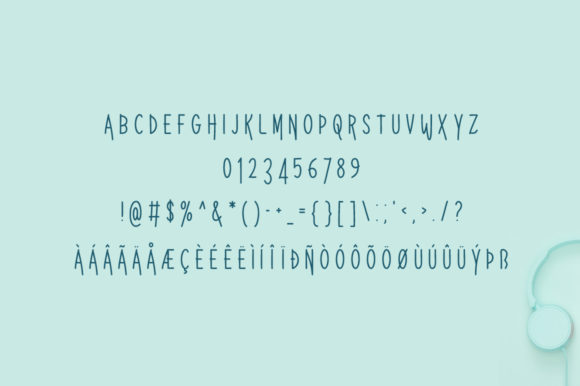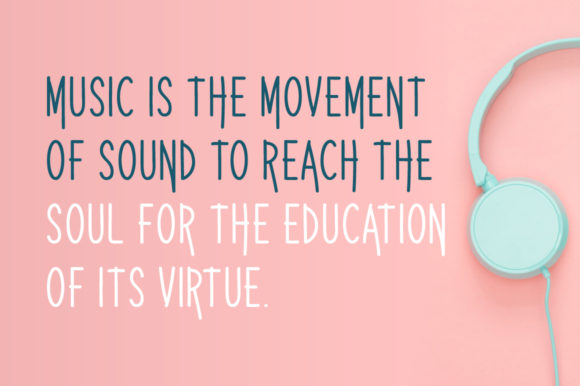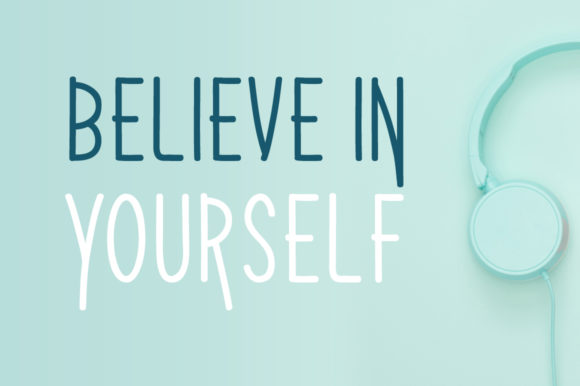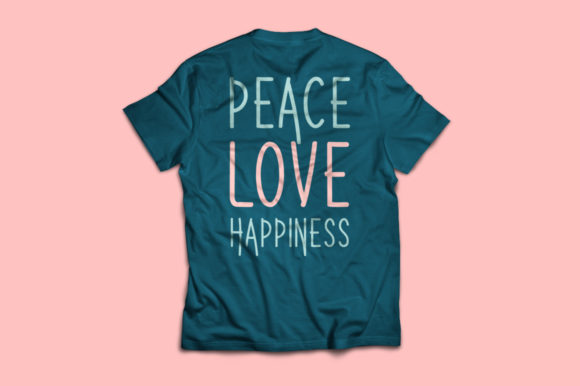
Introduction to Maximin Font
Do you remember the moment when you stumbled upon the perfect font for your creative project? It’s that ‘aha’ moment when everything falls into place, and your design comes alive. For designers, finding the right font can be a game-changer. It’s what sets your work apart from the rest and makes it truly memorable.
Enter the Maximin Font, a stunning new addition to the world of typography. This modern display font is a design resource that’s sure to elevate your projects to the next level. With its sleek lines and versatility, it’s perfectly suited for a wide range of applications, from stationery and logos to t-shirts and posters.
What makes the Maximin Font truly special is its high-quality design, which allows for a transparent background, making it a valuable asset for any creative project. And the best part? It’s available for free download, making it an accessible resource for designers of all levels.
Key Features of Maximin Font
- High-quality design resource ideal for creative projects with a transparent background.
- Includes 4 different font styles (Light, Regular, Medium, Bold) for versatility in design.
- Supports Latin and Cyrillic alphabets, making it suitable for international designs.
Honest Review: Maximin Font
As a designer, I’m always on the lookout for high-quality design resources that can elevate my creative projects. Recently, I had the chance to try out the Maximin Font, and I’m excited to share my honest review.
- ✨ The Maximin Font has a beautiful, elegant design that’s perfect for a variety of creative projects, from branding to publishing.
- ✨ The font is highly customizable, making it easy to adjust to fit your specific design needs.
- ⚠️ The Maximin Font doesn’t come with a transparent background, which can make it difficult to use on certain design elements.
- ⚠️ Some users may find the font to be a bit too ornate for certain projects, but I personally love its elegance.
Overall, I’m really impressed with the Maximin Font. It’s a high-quality design resource that’s perfect for designers who want to add a touch of sophistication to their creative projects. While it may have a few limitations, I think it’s well worth the free download.
How to Use Maximin Font
The Maximin Font is a high-quality design resource ideal for creative projects that require a unique and sophisticated touch. With its transparent background, this font is perfect for overlaying on images or using as a standalone design element.
Getting the Most Out of Maximin Font
For optimal results, use the Maximin Font in conjunction with high-quality images and design elements. Experiment with different font sizes, colors, and combinations to find the perfect look for your project.
The Maximin Font is perfect for a variety of creative projects, including:
- Print design and publishing
Q: Is the Maximin Font available with a transparent background?
Yes, the Maximin Font includes a version with a transparent background, making it ideal for use on images or videos with a transparent or semi-transparent background. This feature is especially useful for designers working on projects that require a high level of design flexibility.